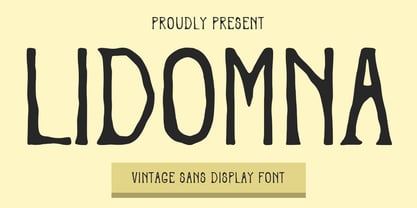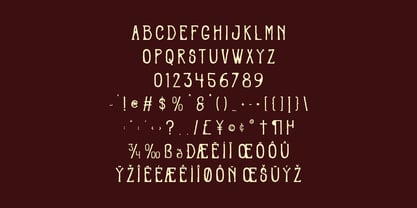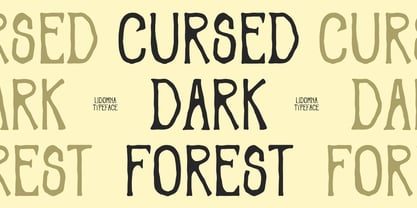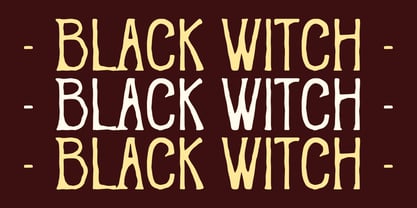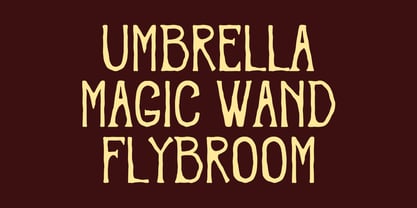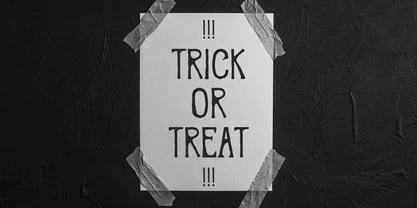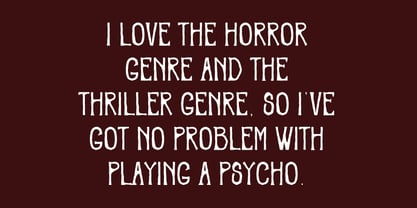
MC Lidomna
by Maulana Creative
The MC Lidomna Font Family was designed by Gilang Maulana and published by Maulana Creative. MC Lidomna contains 1 styles. More about this family
Lidomna is a vintage retro sans display font. With medium tall and grunge stroke, fun character to give you an extra creative work. Lidomna font support multilingual more than 100+ language. This font is good for logo design, Social media, Movie Titles, Books Titles, a short text even a long text letter and good for your secondary text font with sans or serif. Make a stunning work with Lidomna font.
Designers: Gilang Maulana
Foundry: Maulana Creative